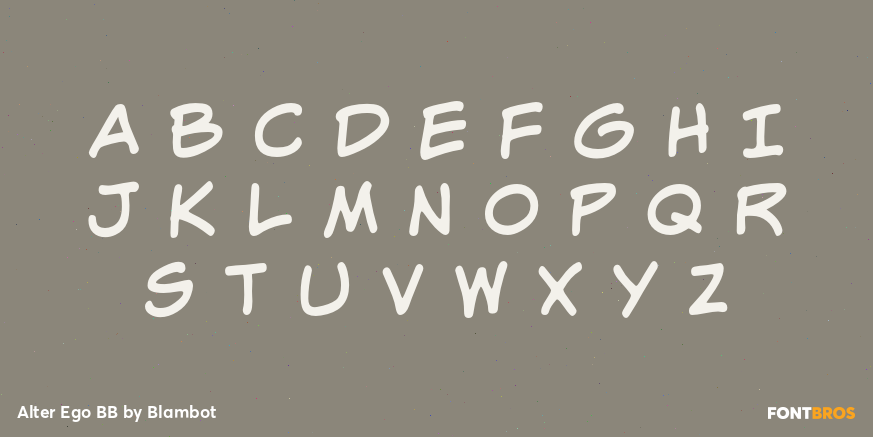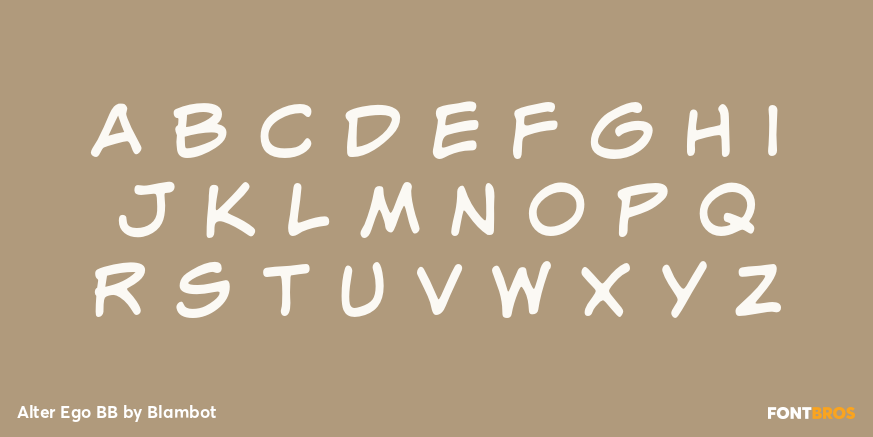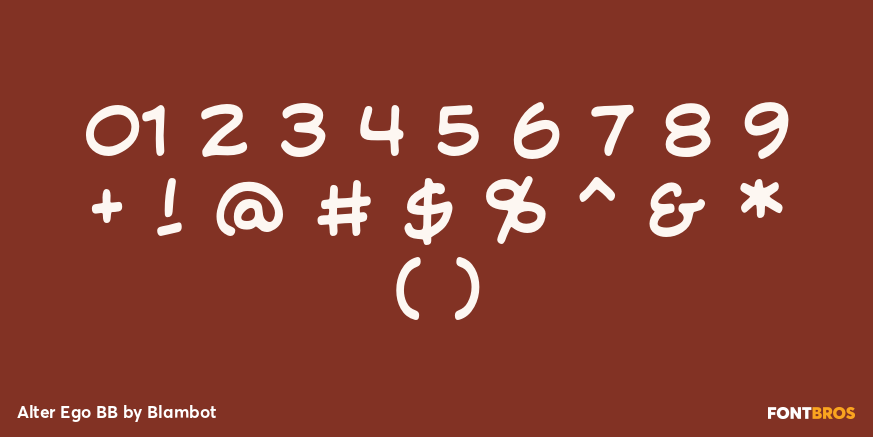
Alter Ego BB
Font Family by Blambot
Buy NowAn old school comic book lettering font ? simple and legible at small point sizes.
Includes Regular, Italic and Bold as well as a hefty compliment of European characters.